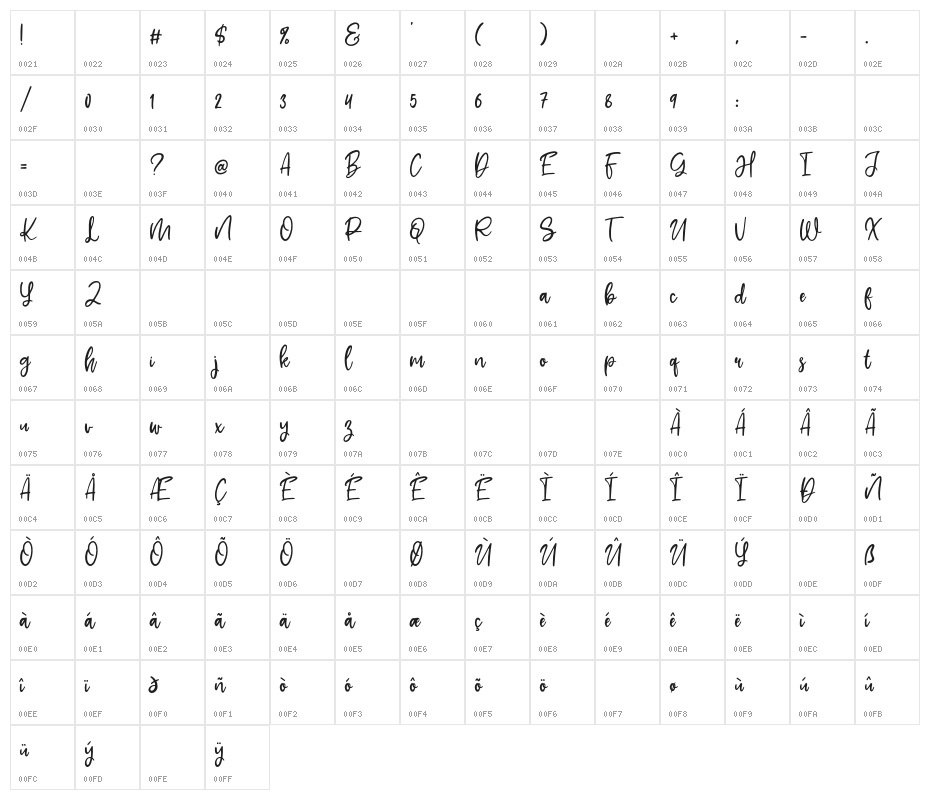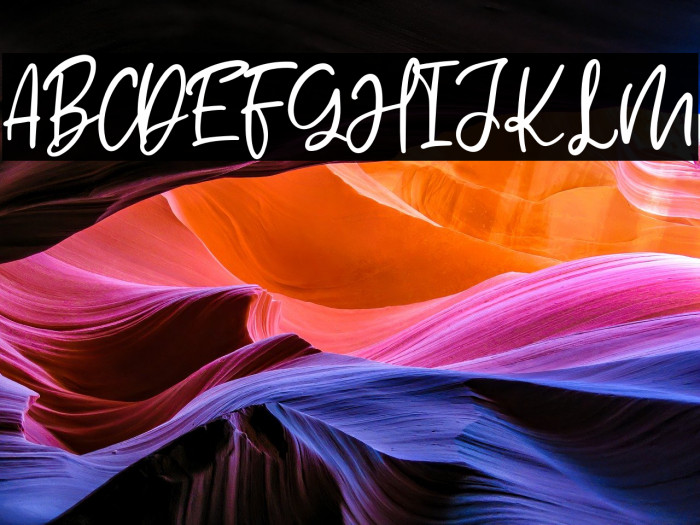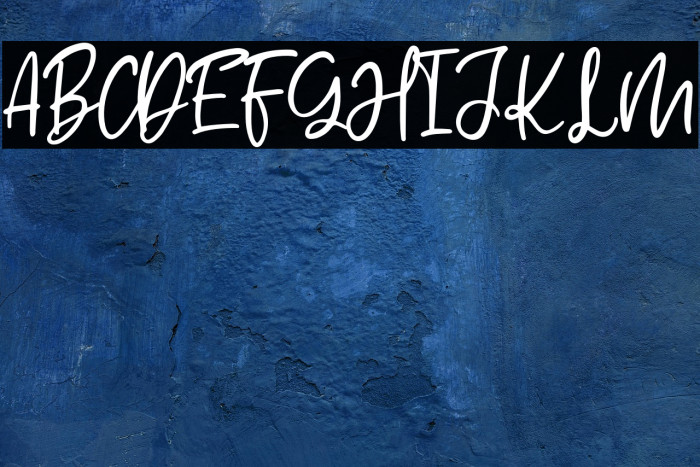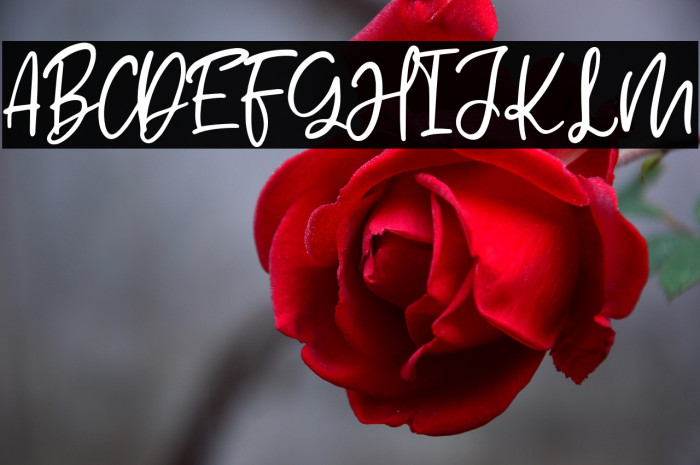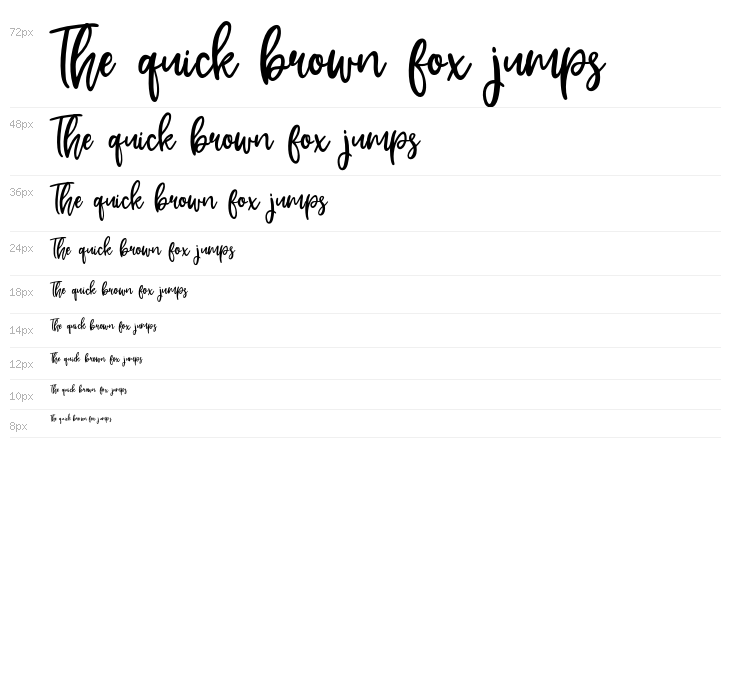
Shelva Font
Shelva Description
This font exudes a lively and playful handwritten style, characterized by its fluid and connected strokes. The uppercase letters are bold and expressive, with a slight slant that adds to the dynamic feel. The lowercase letters maintain a consistent flow, enhancing readability while preserving the handwritten charm. Numbers and special characters are crafted with the same attention to detail, ensuring a cohesive look across all elements. The overall appearance is both casual and elegant, making it suitable for a variety of creative projects.
| Overall Style | Casual, Elegant |
| Proposed Projects | Ideal for greeting cards, invitations, personal branding, and social media graphics. |